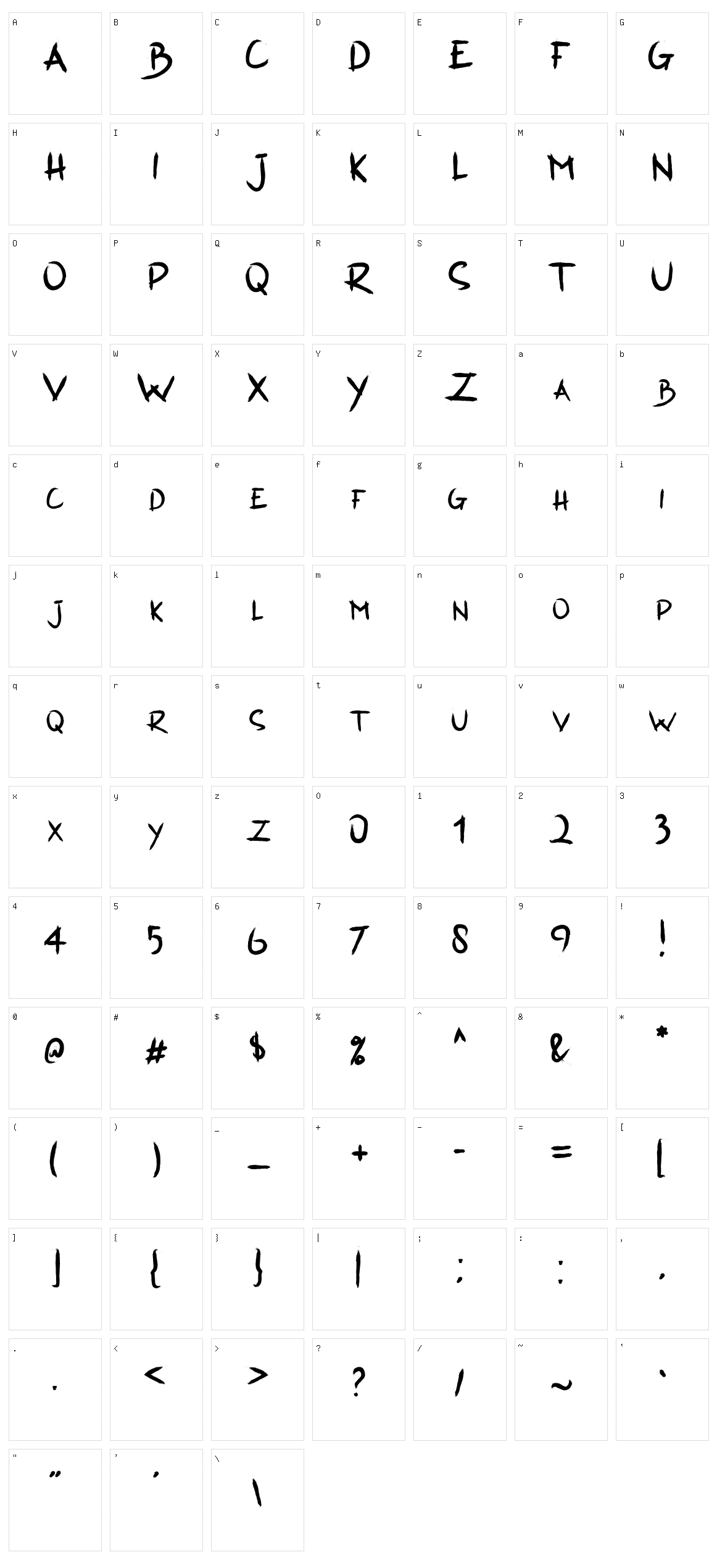
Salvation - Typeface Font
Salvation is a typeface font. Its a great font for fashion, apparel projects, album cover, logo, branding, magazine, social media, & advertisements, but also works great for other projects.
- The perfect font choice for powerful projects - watermarks, signatures, photography, logos, business cards, quotes, album covers.